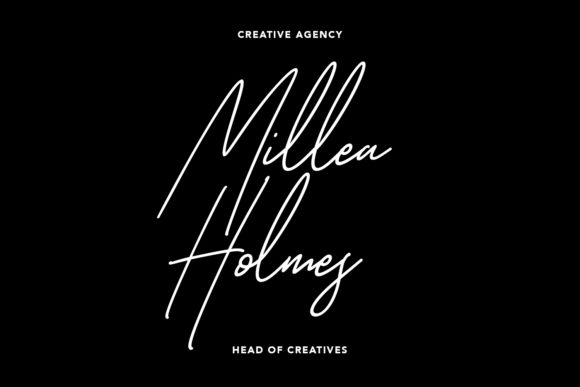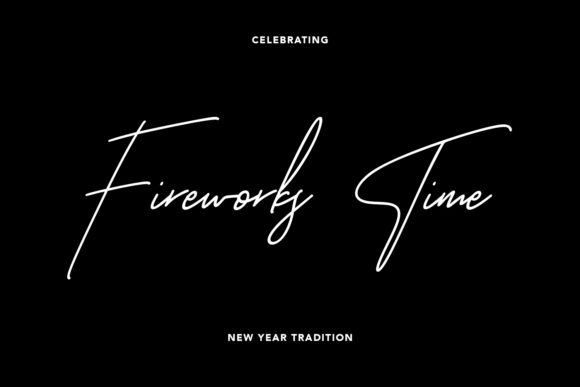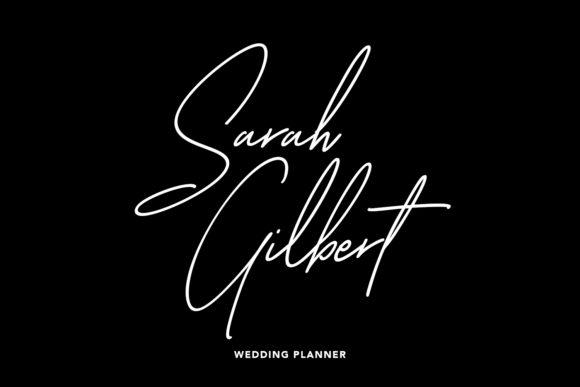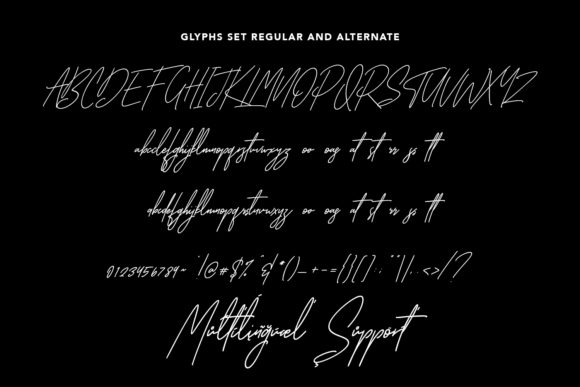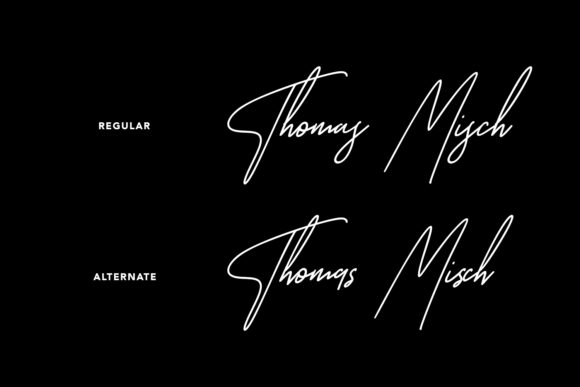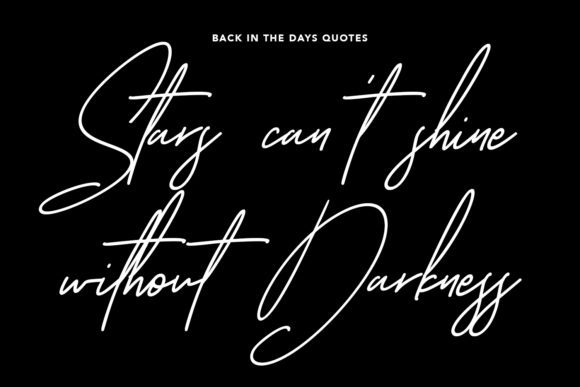
The Designer’s Delight: A Deep Dive into Boardsky Font
I’ll never forget the time I was working on a craft project for a client who wanted a custom sign with a very specific aesthetic. I had spent hours browsing through font libraries, but nothing seemed quite right. That was until I stumbled upon Boardsky Font. It was like a breath of fresh air – modern, elegant, and handwritten with a simplicity that made it incredibly versatile. In this article, I’ll share my experience with Boardsky Font, its features, and how you can make the most of it in your designs.
An Honest Review of Boardsky Font
• ✨ Modern and Elegant: Boardsky Font has a sleek, contemporary feel that works beautifully for a wide range of design projects.
• ✅ Easy to Read: Despite its elegant appearance, the font remains highly legible, making it perfect for both headings and body text.
• 💫 Handwritten Charm: The font’s handwritten nature adds a personal touch to any design, making it ideal for crafty projects or custom gifts.
• 🌈 Versatile: Boardsky Font works well with various design styles, from minimalist to more elaborate craft designs.
While Boardsky Font is incredibly useful, there are a few things to keep in mind:
• 🤔 Limited Use in Serif Contexts: While it’s incredibly versatile, Boardsky Font might not be the best choice when you need a font for lengthy serif texts. Its elegance shines best in headings or short paragraphs.
• ⚠️ Dependence on OpenType Features: To get the most out of Boardsky Font, especially its stylistic alternates and glyphs, you need to work in a design environment that supports OpenType features.
The Story Behind Boardsky Font
While the origins of Boardsky Font might not be well-documented, it’s clear that it was designed with the modern designer in mind. Its creator aimed to produce a font that was both elegant and accessible, perfect for a wide range of projects from digital blogs to handmade crafts. The result is a font that feels both personal and professional.
Q: What makes Boardsky Font unique?
A: Boardsky Font stands out for its modern yet elegant handwritten appearance, making it versatile for various design projects.
Q: Does Boardsky Font support OpenType features?
A: Yes, Boardsky Font comes with OpenType features, including stylistic alternates and glyphs, which can enhance your typography in supporting design environments.
Q: Is Boardsky Font suitable for body text?
A: While Boardsky Font is elegant and readable, it’s best used for headings or short paragraphs. For lengthy body text, you might prefer a more traditional serif or sans-serif font.